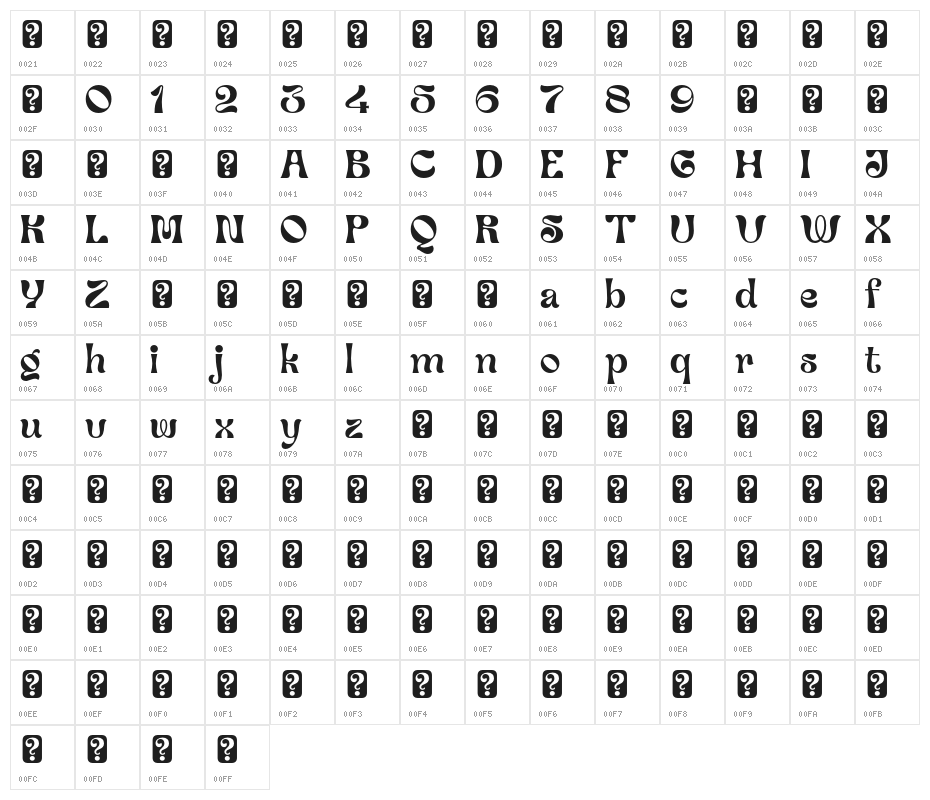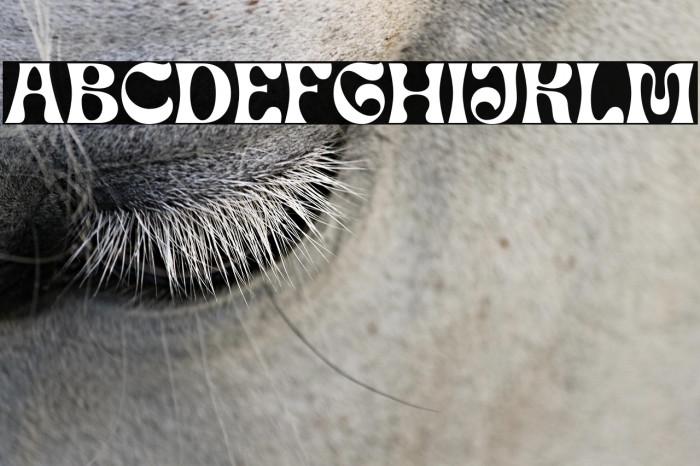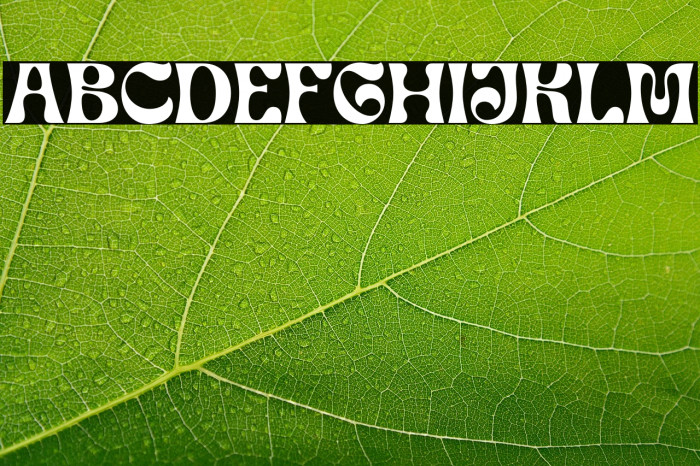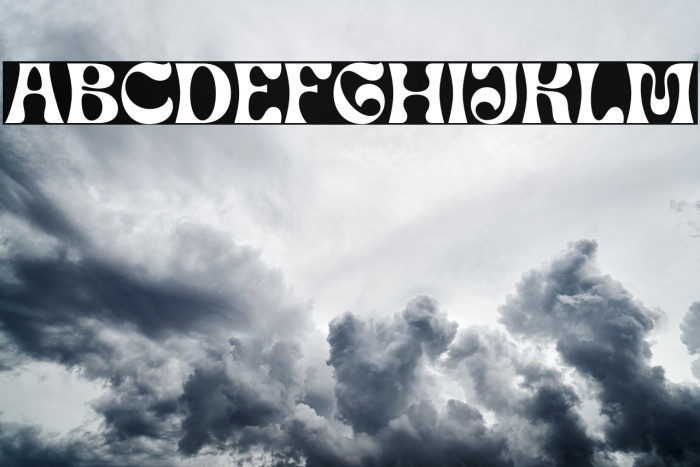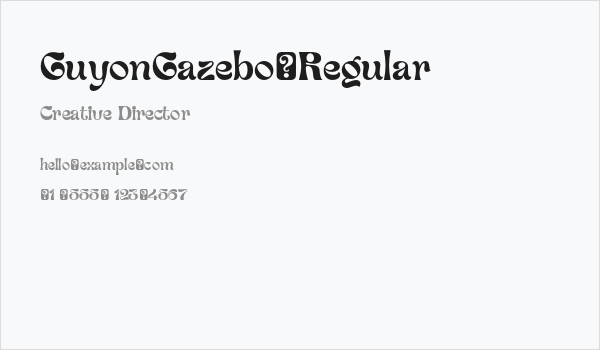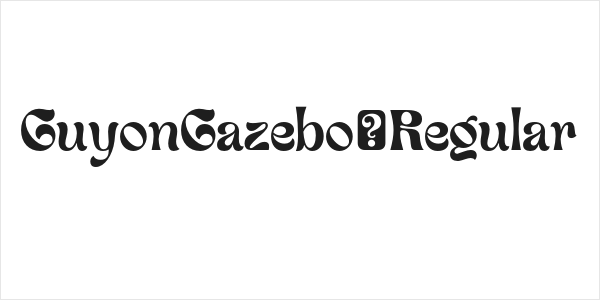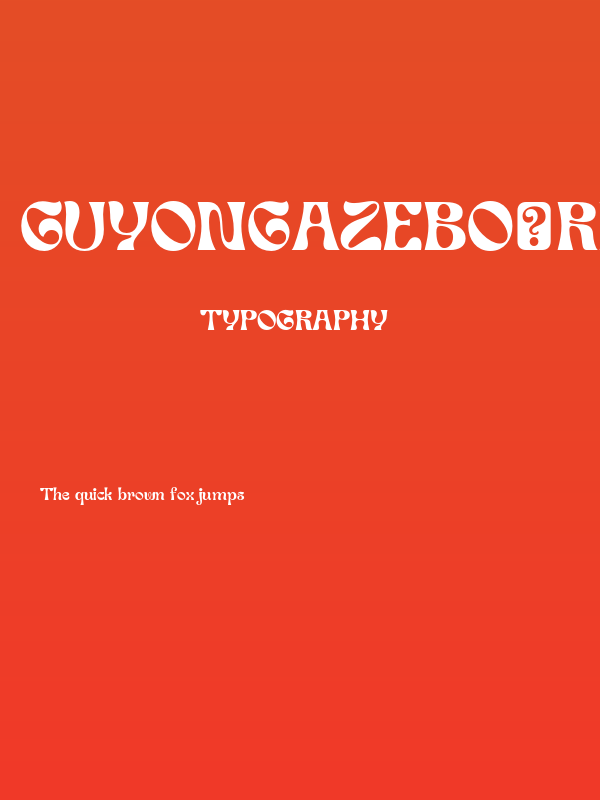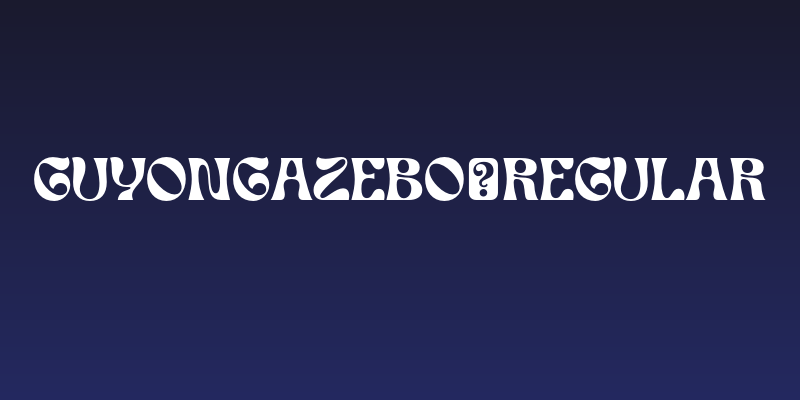
GuyonGazebo-Regular Font
GuyonGazebo-Regular Description
This font features a unique and playful design with a decorative flair, characterized by its bold and curvy letterforms. The uppercase letters exhibit a whimsical style with exaggerated curves and varying stroke widths, creating a dynamic and eye-catching appearance. The lowercase letters maintain a similar playful aesthetic, with some characters featuring distinctive loops and swirls. The numerals are equally stylized, incorporating the same bold and curvy elements. The special characters, such as the question mark, continue this theme with their ornate and expressive forms. Overall, this font exudes a sense of fun and creativity, making it ideal for projects that require a touch of personality and flair.